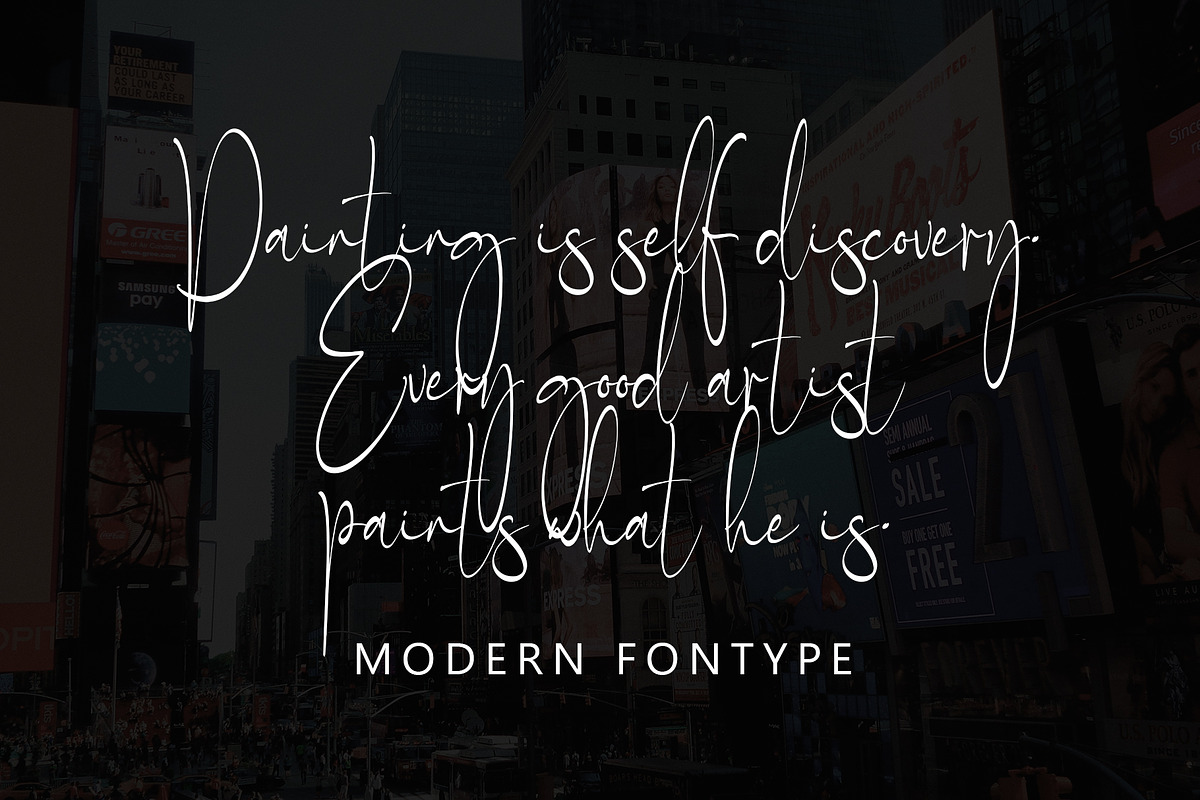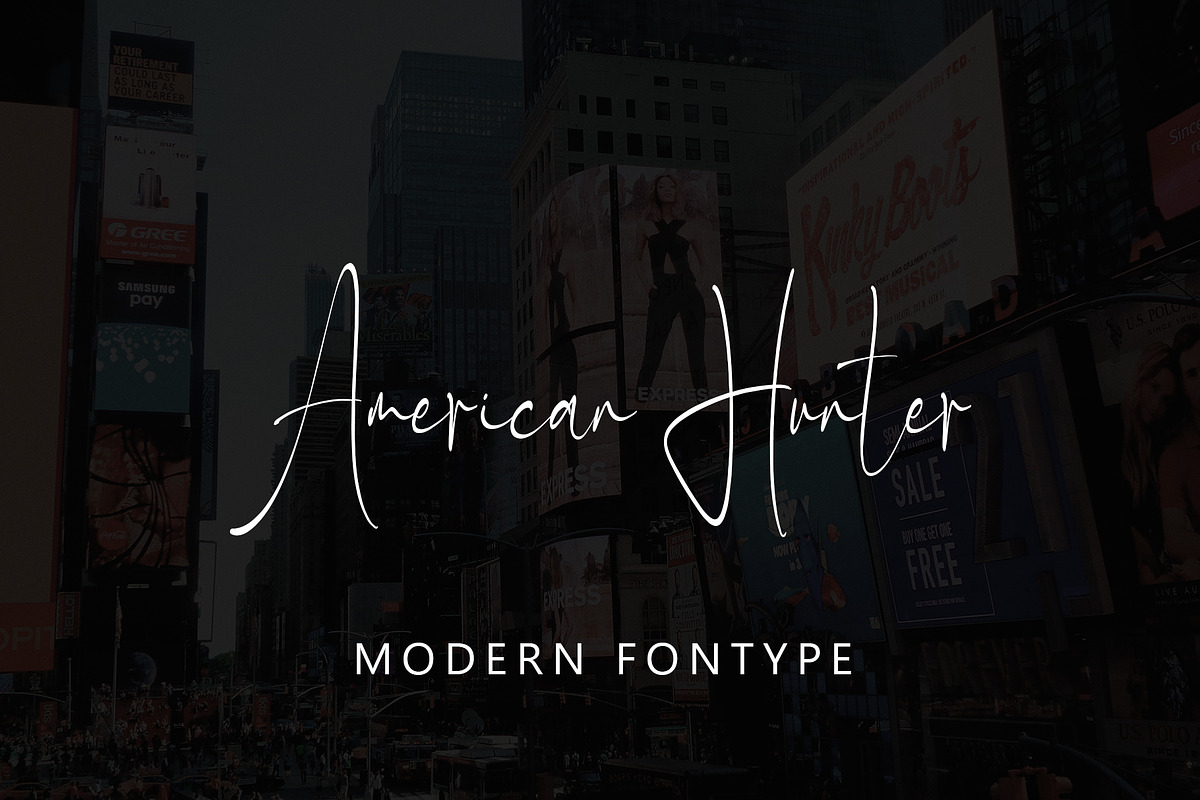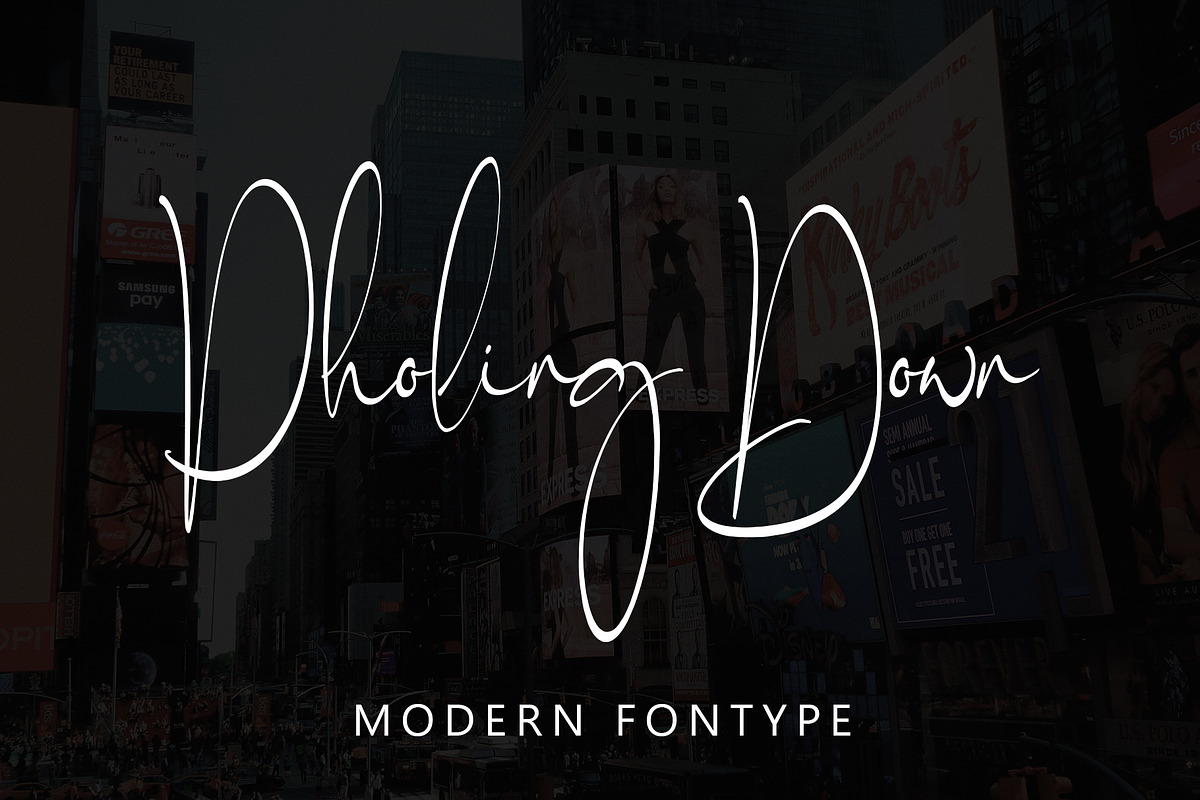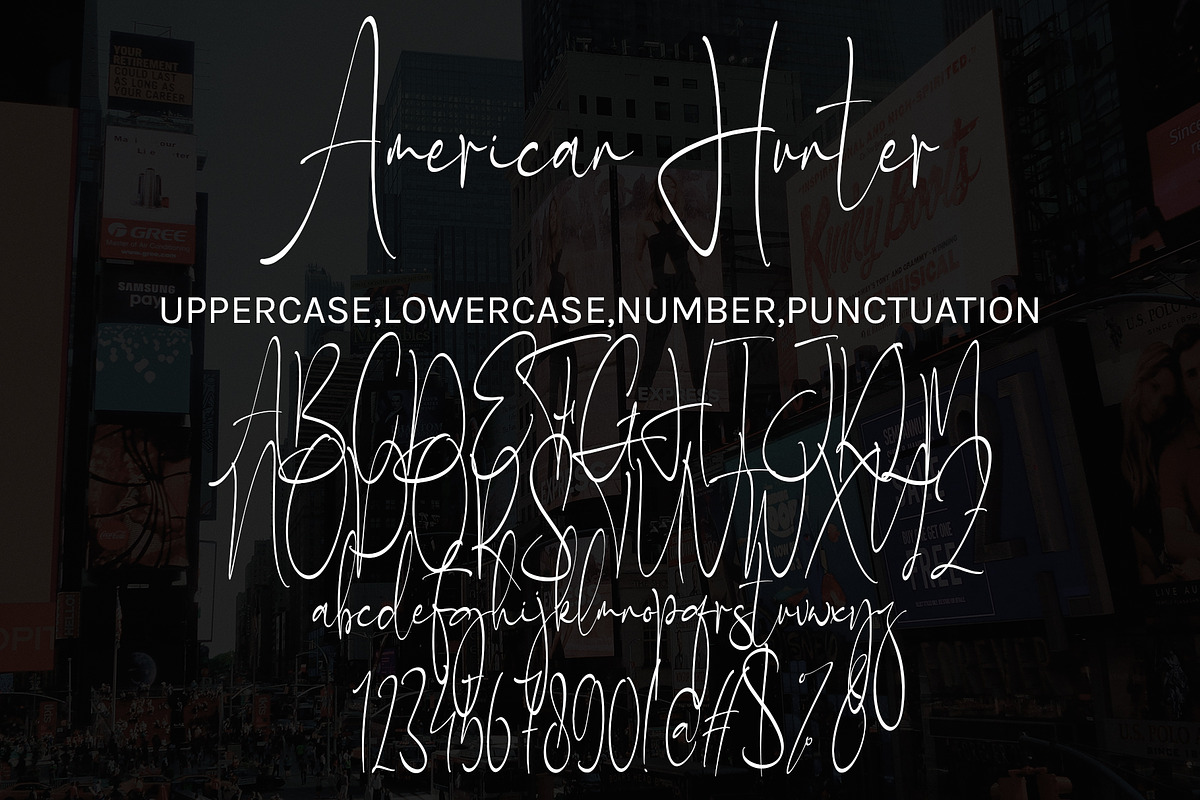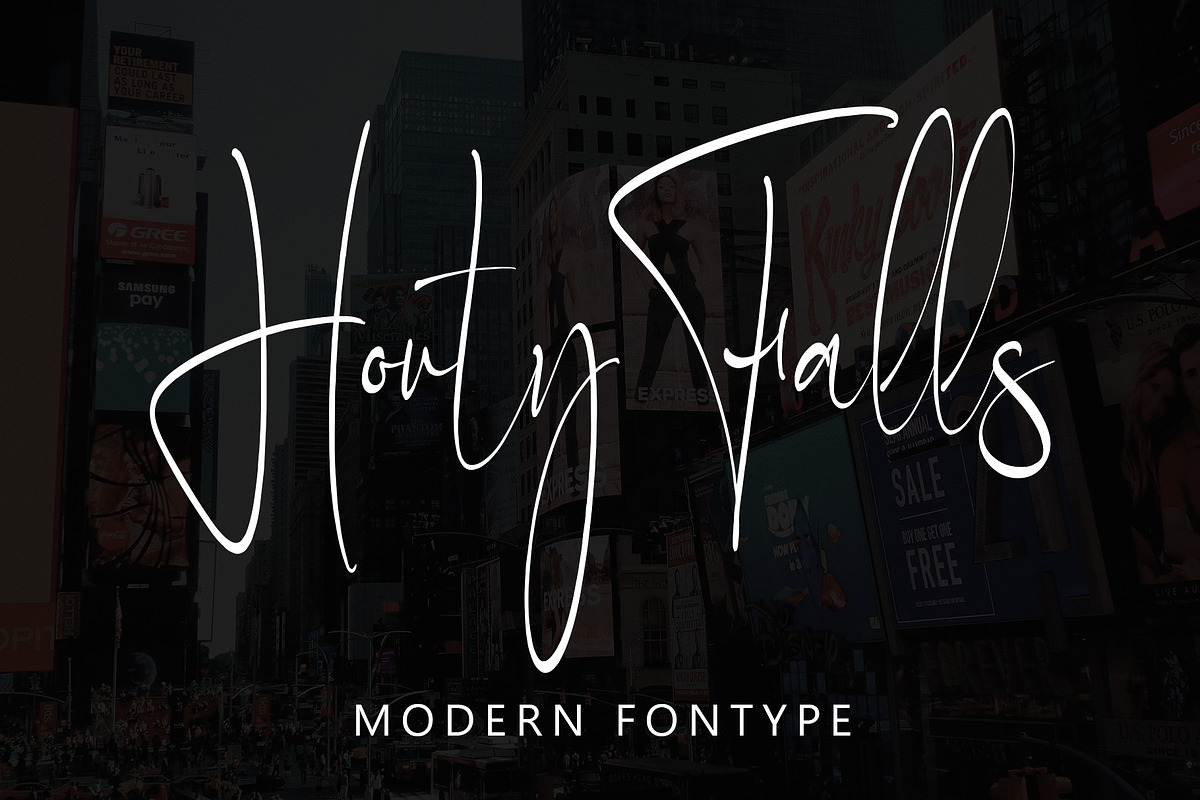
American Hunter
American Hunter with new style, this font will perfect for many different project ex: quotes, logo, blog header, poster, banding, letter, invitation, stationery, etc...